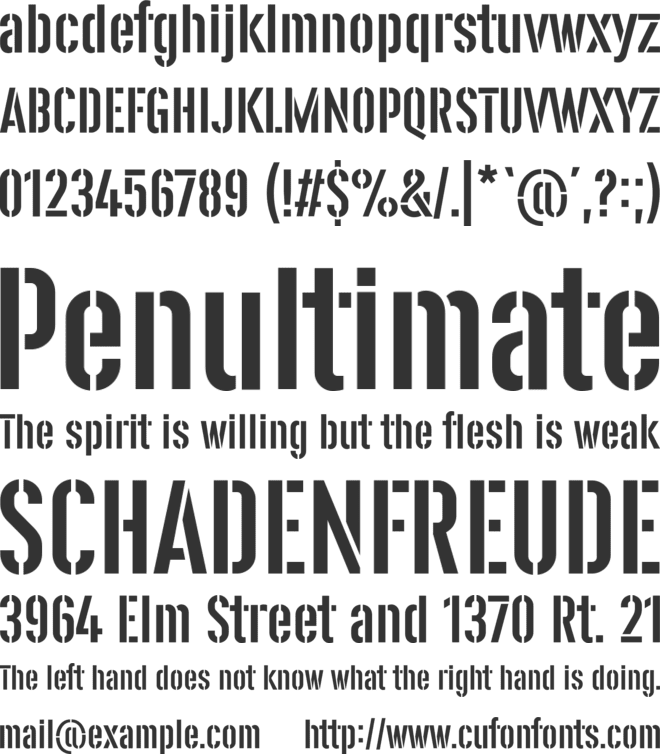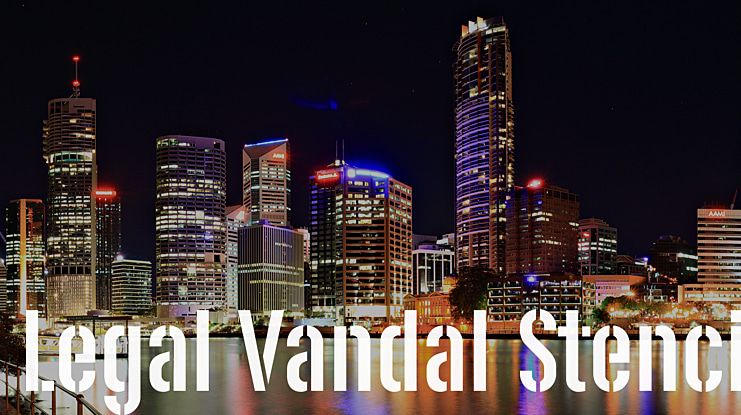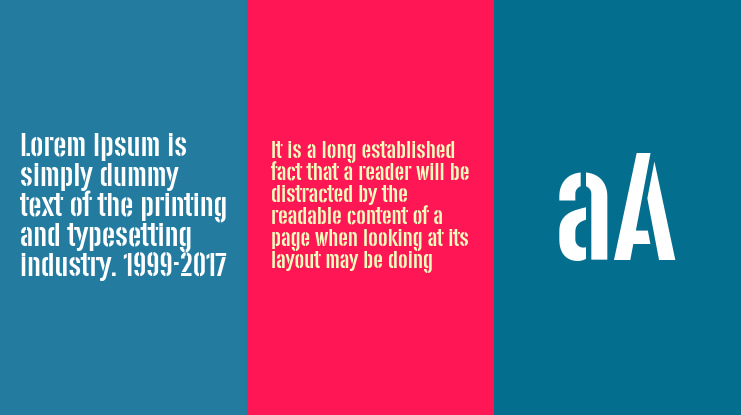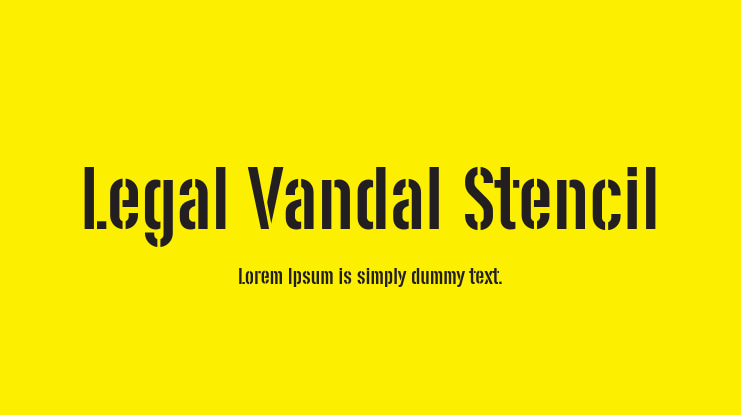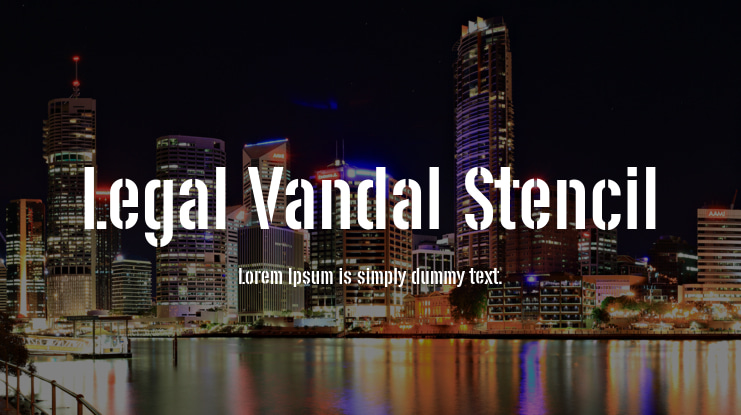
Legal Vandal Stencil Font
Levi Szekeres
As it usually happens, this font is an extension of a personal project, for which I needed only a few characters. An obvious reference to army and cargo fonts, Legal Vandal is meant to keep a clean cut, with a right balance between simplicity and legibility, leaving the after effects to physical applications, if any.